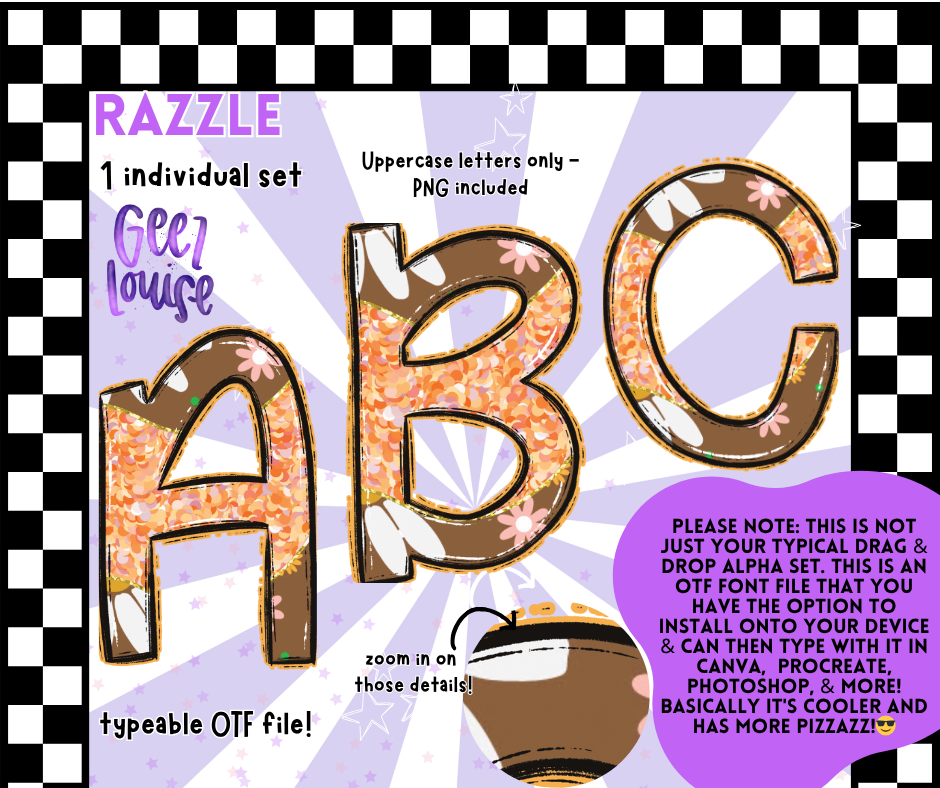
Ready to razzle-dazzle your designs? Razzle is here to steal the show. With glittery textures, floral flair, and bold uppercase forms, this font is pure eye candy. Whether you're crafting merch, invites, or digital art, Razzle brings the glam.
Uppercase letters only
1 individual set packed with floral glitter magic
This isn’t your average alpha set—it’s a full-blown typeable font with serious pizzazz. Every letter is a statement piece, combining lush florals and glittery accents for a look that’s bold, beautiful, and totally extra.